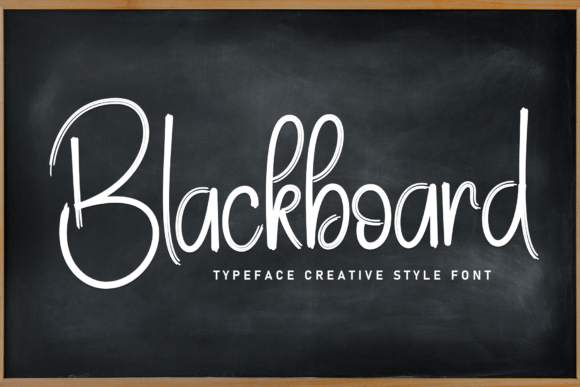
Unleashing the Artistic Charm of Blackboard Font
Have you ever sat down with a pen and paper, feeling the urge to create something beautiful? Maybe it was a heartfelt thank you note, a wedding invitation, or a simple ‘I love you’ message. Whatever it was, the act of putting pen to paper can be incredibly therapeutic and inspiring. As designers, we often seek to capture that same essence in our digital creations. And that’s where the Blackboard Font comes in – a stylish and elegant script font that brings a handwritten touch to our designs.
The Blackboard Font is a versatile and sophisticated font that can be used in a variety of design projects, from wedding invitations to logos and business cards. Its unique charm and elegance make it a valuable asset for designers, allowing them to add a personal and creative touch to their work. With the Blackboard Font, designers can create truly unique and memorable designs that stand out from the crowd.
Blackboard Font Key Features
- Font Family: Blackboard Bold, Blackboard Italic, and Blackboard Regular are part of the font family. The font is available in various weights and styles.
- Size: The font is designed to be highly legible at a wide range of sizes, from 8pt to 24pt.
- Resolution: The font is optimized for use at resolutions up to 1200 DPI.
- Unique Characteristics: The Blackboard font is known for its unique, hand-drawn appearance, with irregular lines and subtle imperfections that give it a human touch.
Designer Review: Blackboard Font
First off, I love the nostalgic vibe that the Blackboard Font gives off ✨. It’s perfect for projects that need a retro touch, and it’s great for creatives who want to add a bit of whimsy to their designs. The font’s imperfections and hand-drawn feel make it stand out in a sea of clean, sans-serif fonts.
The Blackboard Font is also highly customizable, which is a major plus ✨. You can adjust the font size, spacing, and even add some subtle texture to give it a more authentic feel. Plus, it’s incredibly versatile – it works well for headings, body text, and even logos.
What Doesn’t Work So Well:
- ⚠️ Limited character set: The Blackboard Font only includes a limited number of characters, which can make it difficult to use for longer blocks of text.
- ⚠️ Not ideal for small text: Due to its hand-drawn nature, the font can become difficult to read when used at smaller sizes.
Overall, the Blackboard Font is a great choice for designers who want to add a touch of personality to their projects. While it may have some limitations, its unique look and high customization options make it a solid choice for creatives who want to stand out from the crowd.
The Blackboard Font is ideal for creating a vintage or distressed look. Use it for:
– Retro-themed posters and flyers
– Vintage-style invitations and announcements
– Distressed text overlays for photos
Experiment with different font sizes, colors, and styles to achieve the desired effect.
Alternatives to Blackboard Font for Designers
1. Comic Sans MS
Comic Sans MS is a casual, cursive font that is often used for informal or playful designs. It is a good alternative to Blackboard Font when you want to convey a friendly or approachable tone. However, it may not be suitable for formal or professional designs due to its informal appearance.
Comparison to Blackboard Font: While both fonts have a casual feel, Comic Sans MS is more playful and informal, whereas Blackboard Font has a more nostalgic and educational vibe.
Pacifico is a modern, cursive font that is often used for design projects that require a touch of elegance and sophistication. It is a good alternative to Blackboard Font when you want to convey a sense of refinement and culture. Pacifico has a more refined and polished appearance compared to Blackboard Font.
Comparison to Blackboard Font: Pacifico is a more polished and sophisticated alternative to Blackboard Font, making it suitable for high-end design projects.